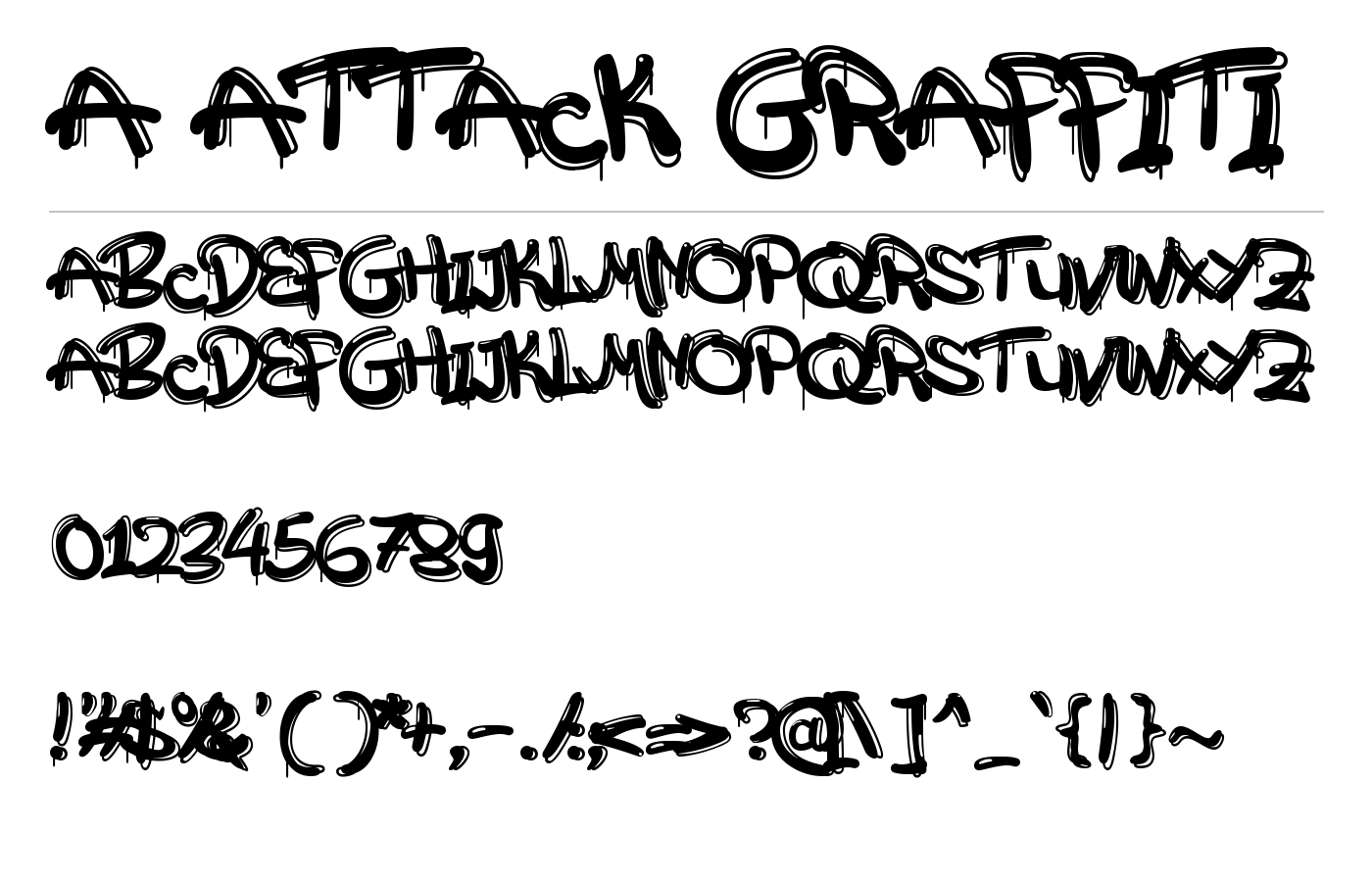
a Attack Graffiti Font captures the raw, energetic spirit of street art with its bold, hand-drawn letterforms dripping as if freshly sprayed. This playful and dynamic sans serif typeface is perfect for edgy branding, urban-themed projects, and eye-catching headlines where a rebellious, youthful vibe is desired. Its unique style works best in creative designs that seek to make a strong, unconventional visual impact.
a Attack Graffiti Font
About a Attack Graffiti Font